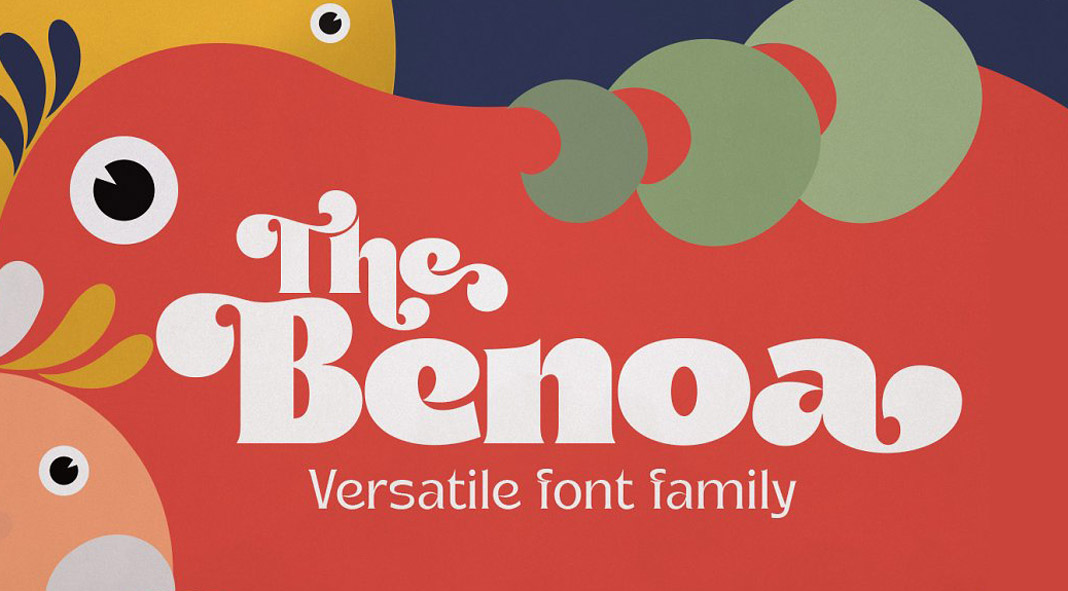
Consisting of six weights including plenty of alternates and variables, Benoa is a playful yet elegant new font family.
The skilled team of Creativemedialab just released Benoa, a new font family that comes in six weights ranging from thin to black. In addition, the typeface is equipped with plenty of alternate characters. The decorative font family is well suited for various typographic needs and styles. Benoa is also available in the Variable format and supports multiple languages. The character set consists of upper and lowercase letters as well as numbers and currency symbols. Just click on one of the following links to get further information about all typographic features.